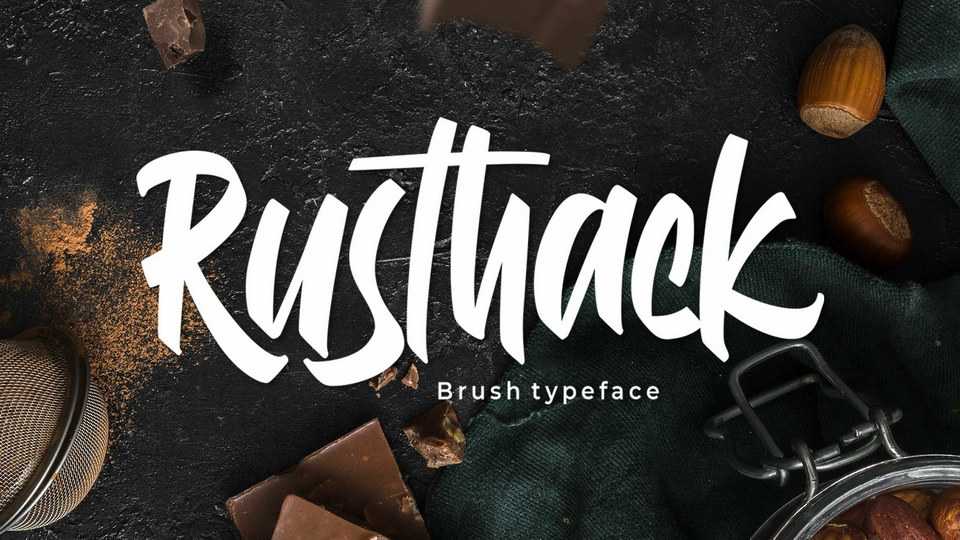
Download Rusthack font, a friendly brush typeface, created with the playful feels of freestyle brush-lettering. Rusthack font comes from the manual brush stroke which has an informal stroke thickness that makes the font looks more natural.